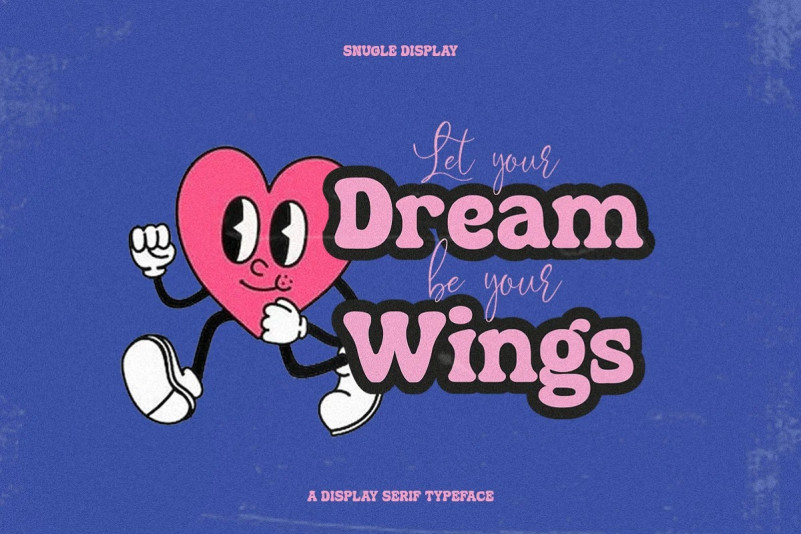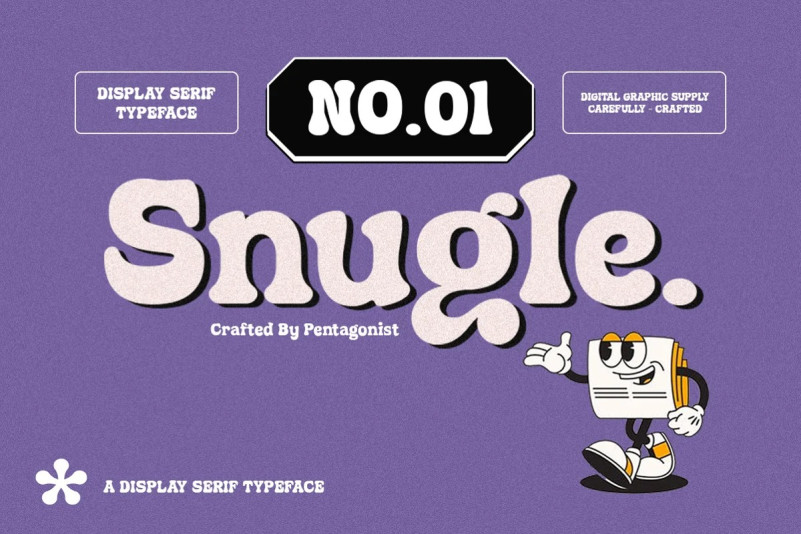
Snugle Font
Looking for a unique, stylish, and fun font for your next project? Snugle Display Font is a fancy display character inspired by retro and vintage style.